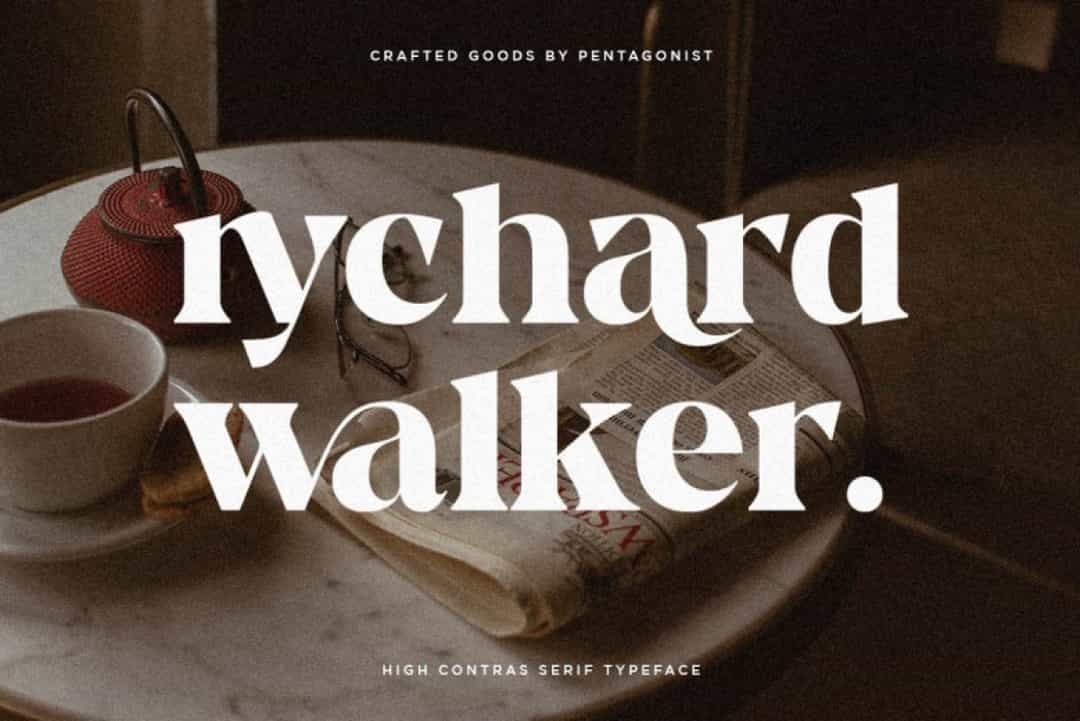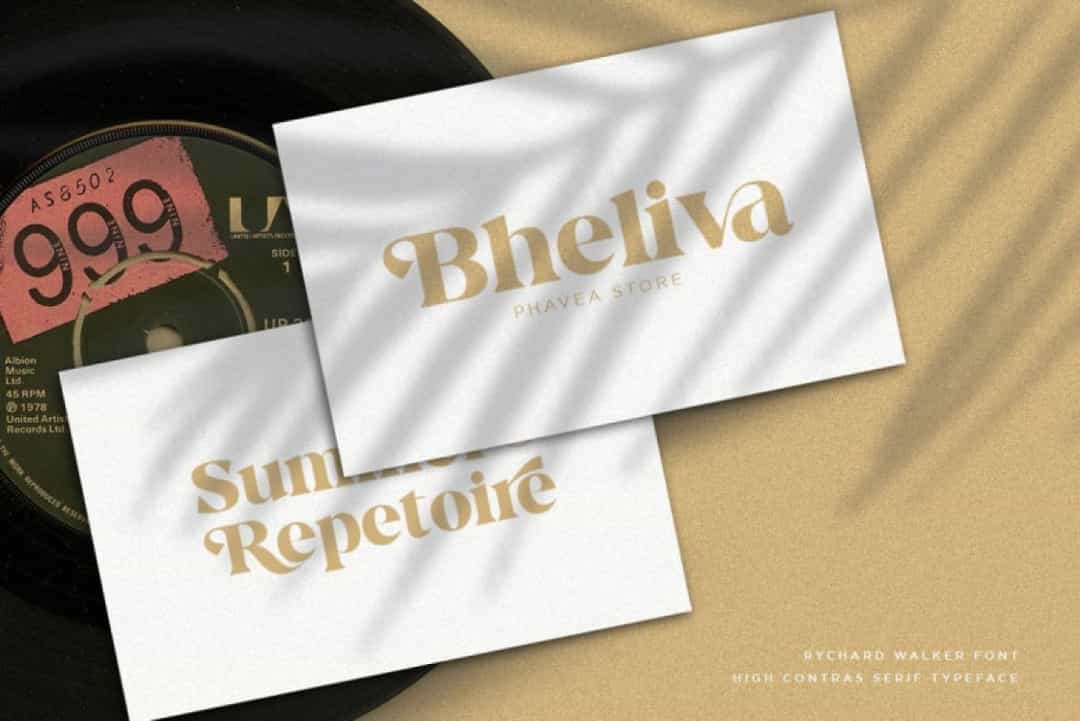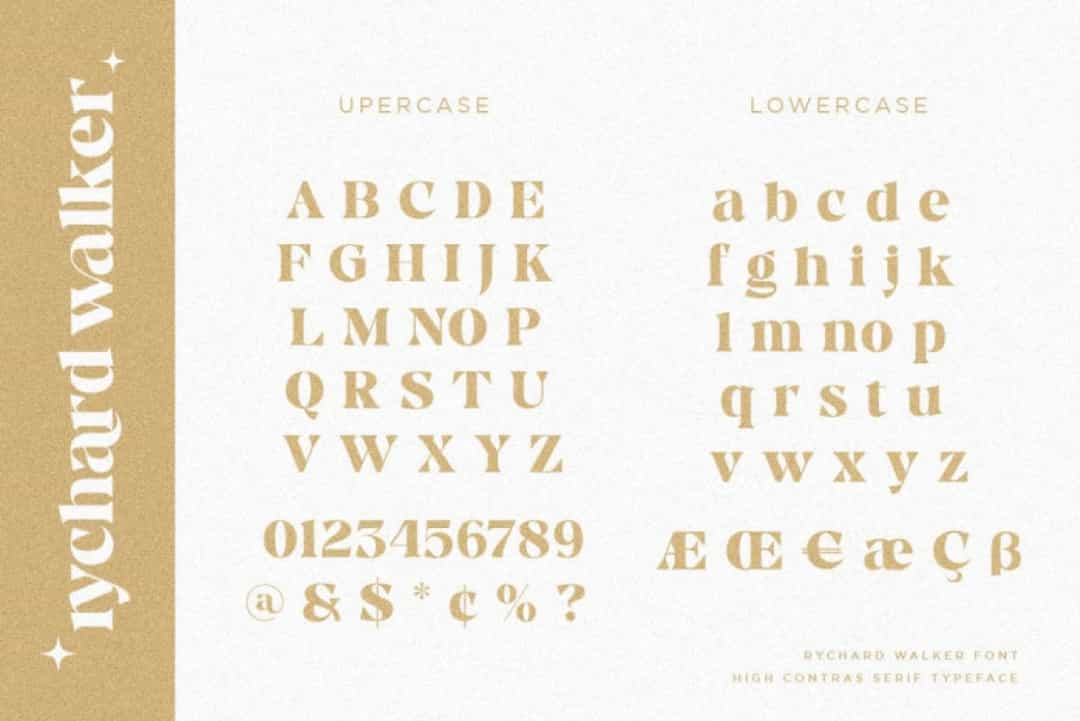
Rychard Walker is a modern typeface character inspired by retro and vintage aesthetics. This font can be used to craft stylish logos, movie or book name designs, fashion brand clothing designs, magazine letters, quotes, and many other creative projects.